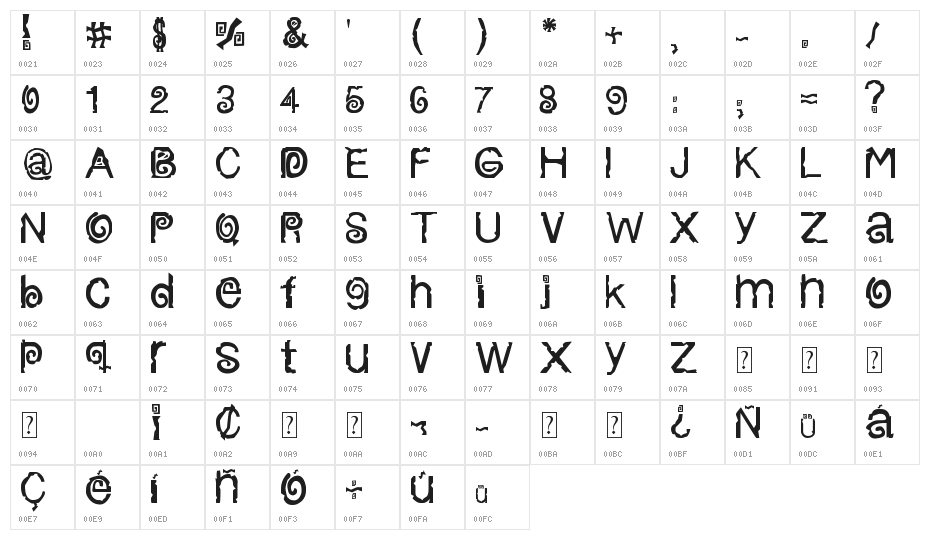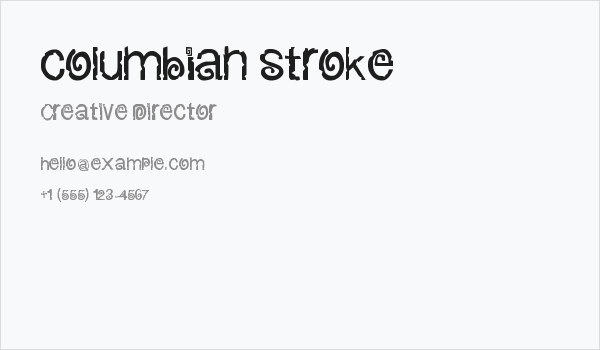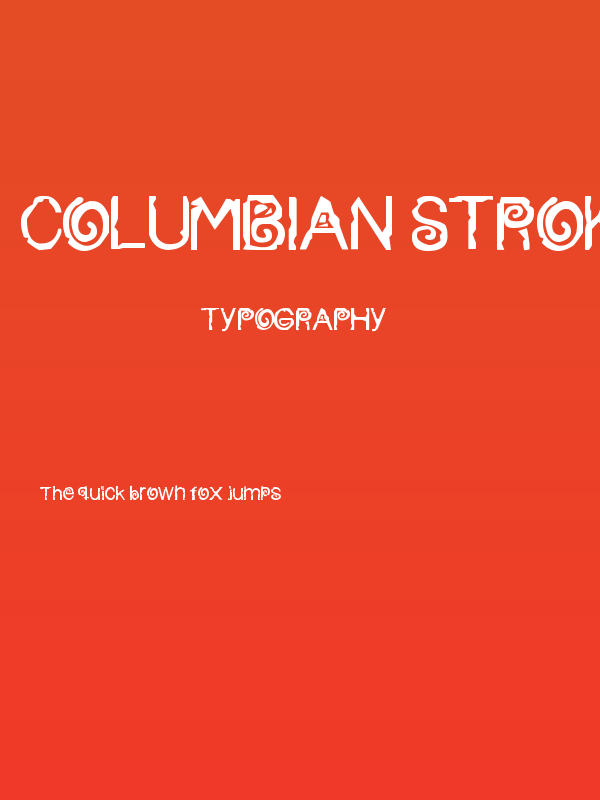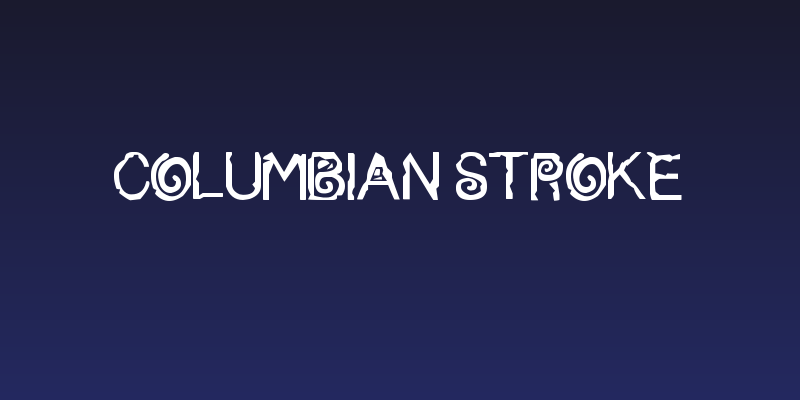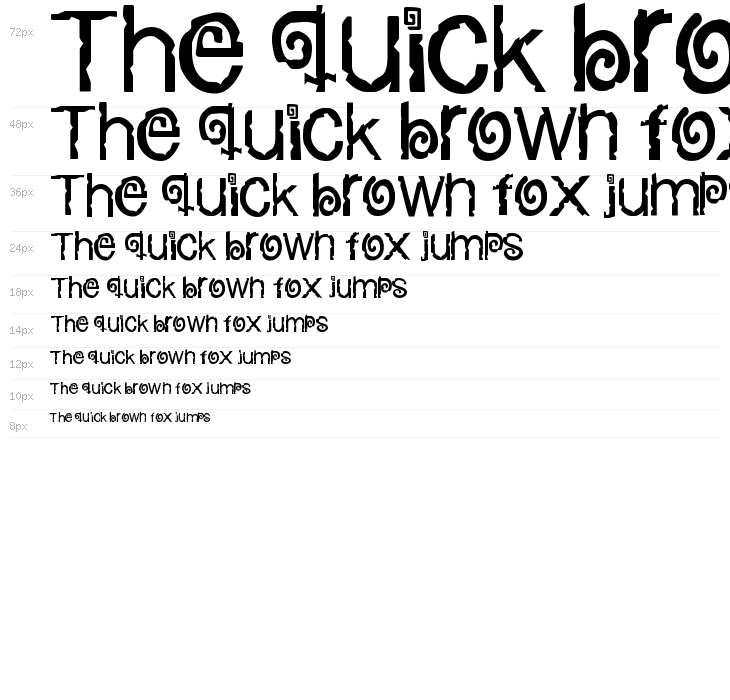
columbian stroke Font
columbian stroke Description
This font features a highly decorative and artistic style, characterized by its bold and intricate design. Each letter is uniquely crafted with elaborate strokes and embellishments, giving it a distinct and eye-catching appearance. The uppercase and lowercase letters maintain a consistent theme, with swirling and angular elements that create a sense of movement and energy. The numbers and special characters are equally stylized, incorporating similar decorative motifs. This font's unique aesthetic makes it suitable for projects that require a strong visual impact.